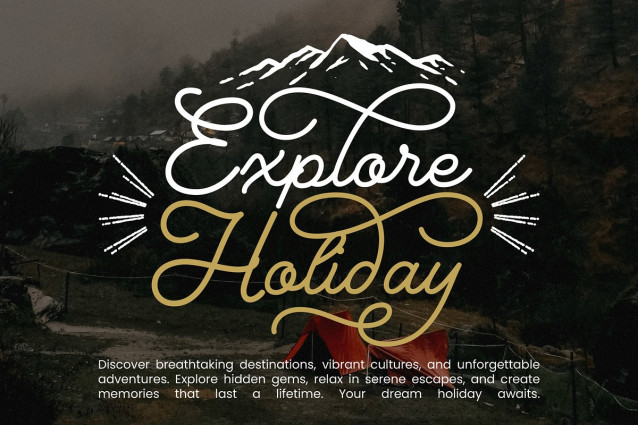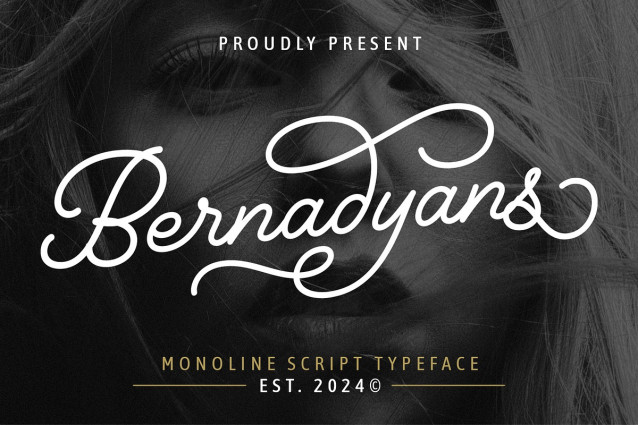
Bernadyans Script Font
Bernadyans Script Font – Elegant Monoline Script Font with smooth, consistent strokes, perfect for logos, branding, wedding stationery, and timeless, minimalistic designs
Uppercase & Lowercase Characters: Fully designed for a complete typographic experience
Numerals & Punctuation: All the numbers and punctuation marks you need for any design task
Multilingual Support: Includes characters for multiple languages, ensuring global usability
High-Quality Design: Each font is crafted with attention to detail, ensuring a polished and professional look
Editable and Scalable: Vector-based fonts that can be resized without losing quality